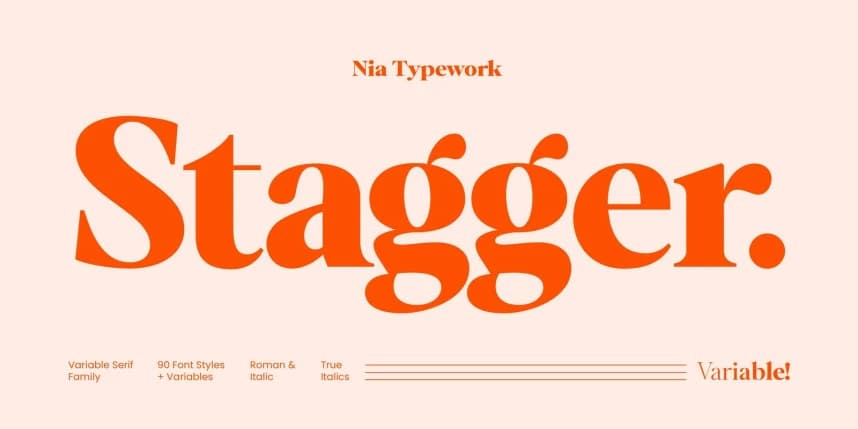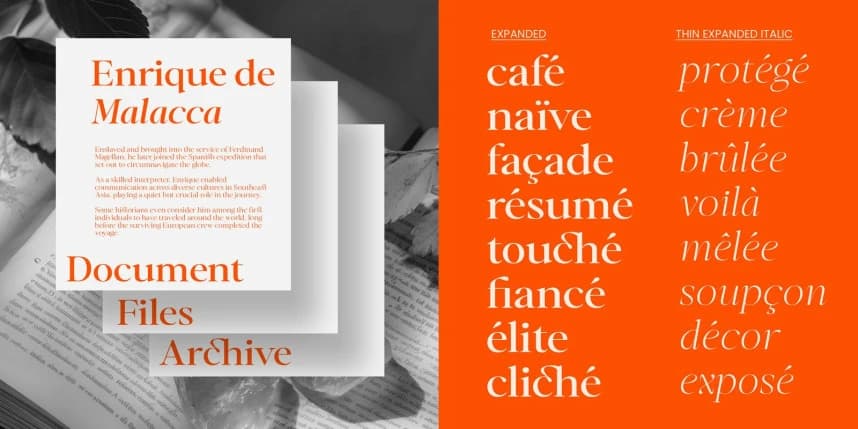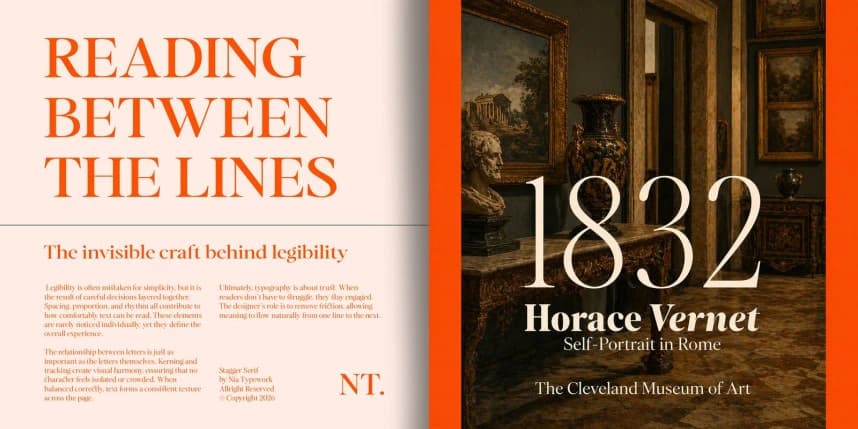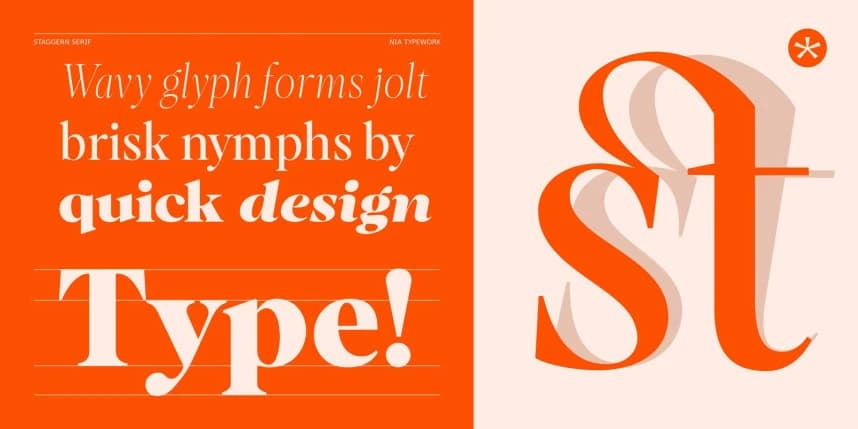
Stagger Font Family
Stagger Font Family is a modern serif typeface with a bold, expressive personality. Designed as a variable font family, it offers extensive flexibility with a wide range of styles, from roman to true italics. Its strong letterforms, subtle contrast